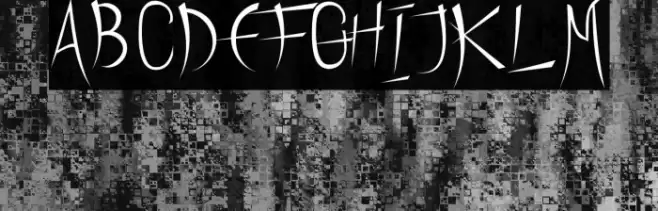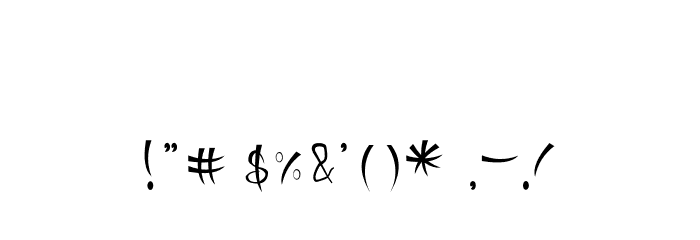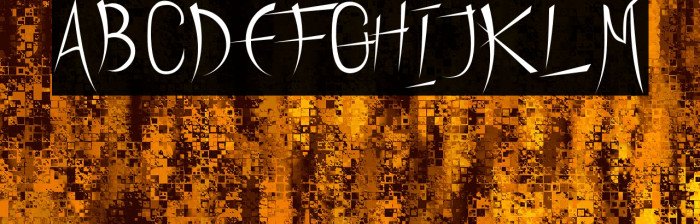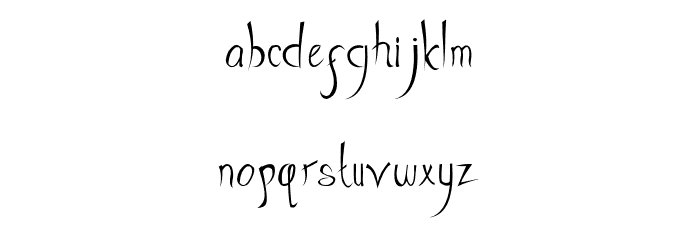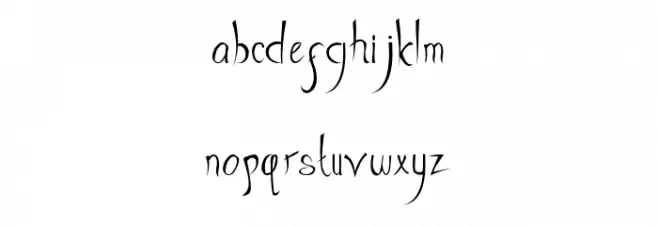
HeathNottedDemo Font
HeathNottedDemo Description
This font features a unique, artistic style with elongated, sharp serifs and a whimsical flair. The uppercase letters are bold and dynamic, with exaggerated curves and pointed ends that give a sense of movement and energy. The lowercase letters maintain a consistent style, with a slightly more subdued appearance but still retaining the playful and artistic essence. The numerals and special characters follow suit, integrating seamlessly with the overall design. This font's distinct characteristics make it stand out, offering a creative and expressive option for various design needs.
An artistic and whimsical font with elongated, sharp serifs and dynamic curves from Gothic fonts.
- Proposed Projects: Ideal for creative projects such as posters, album covers, or branding for artistic ventures.